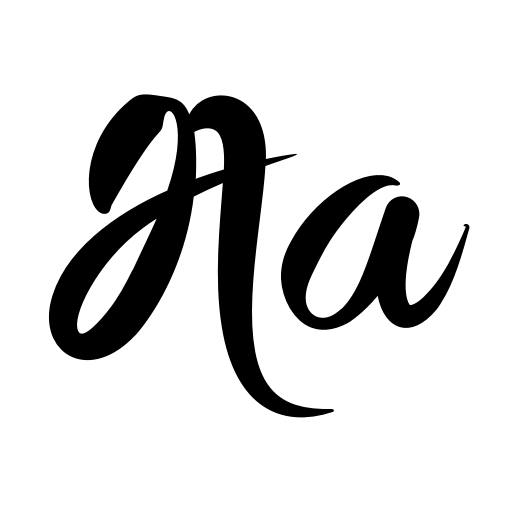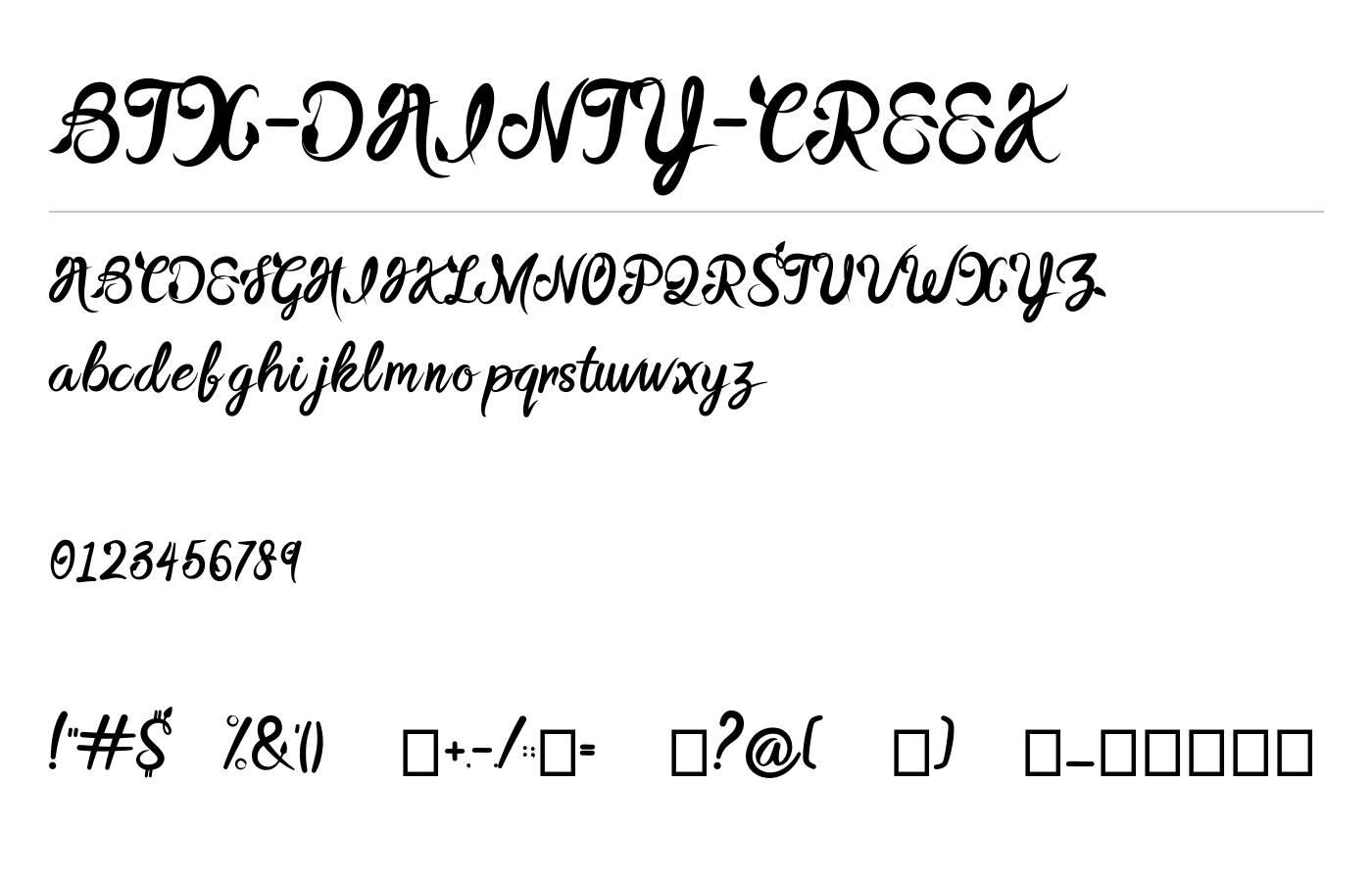
BTX-Dainty-Creek is an elegant script font characterized by its smooth, flowing strokes and playful yet refined letterforms. Its moderate contrast and cursive style give it a charming, handcrafted feel that works beautifully for invitations, logos, or branding that seeks a stylish and personal touch. This font shines best in decorative uses where its delicate flair can add sophistication and warmth.
BTX-DAINTY-CREEK Font
About BTX-DAINTY-CREEK Font